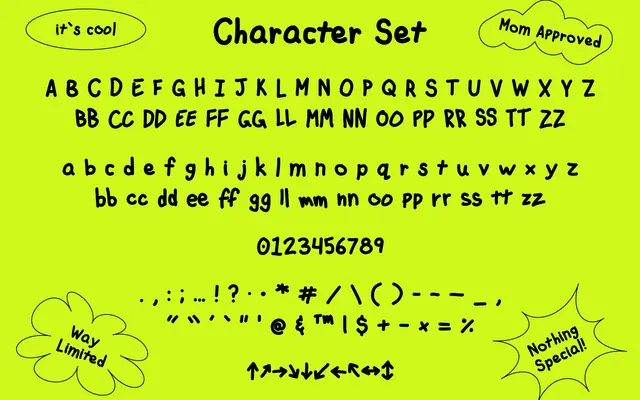
Komique Sans
A handwritten display typeface with a single Display style, covering Latin alongside a set of doubled-letter ligatures.
A casual, hand-drawn display face from That That Type offered in one Display weight. Its glyph set covers Basic Latin, selected punctuation and a range of doubled-letter ligatures such as BB, CC and ffi. The informal character suits packaging, editorial headers or branding where a handcrafted quality is wanted without full script complexity.
Described as a hand-written font and offered in a single Display style, placing it firmly in the display category with an informal, handcrafted character.